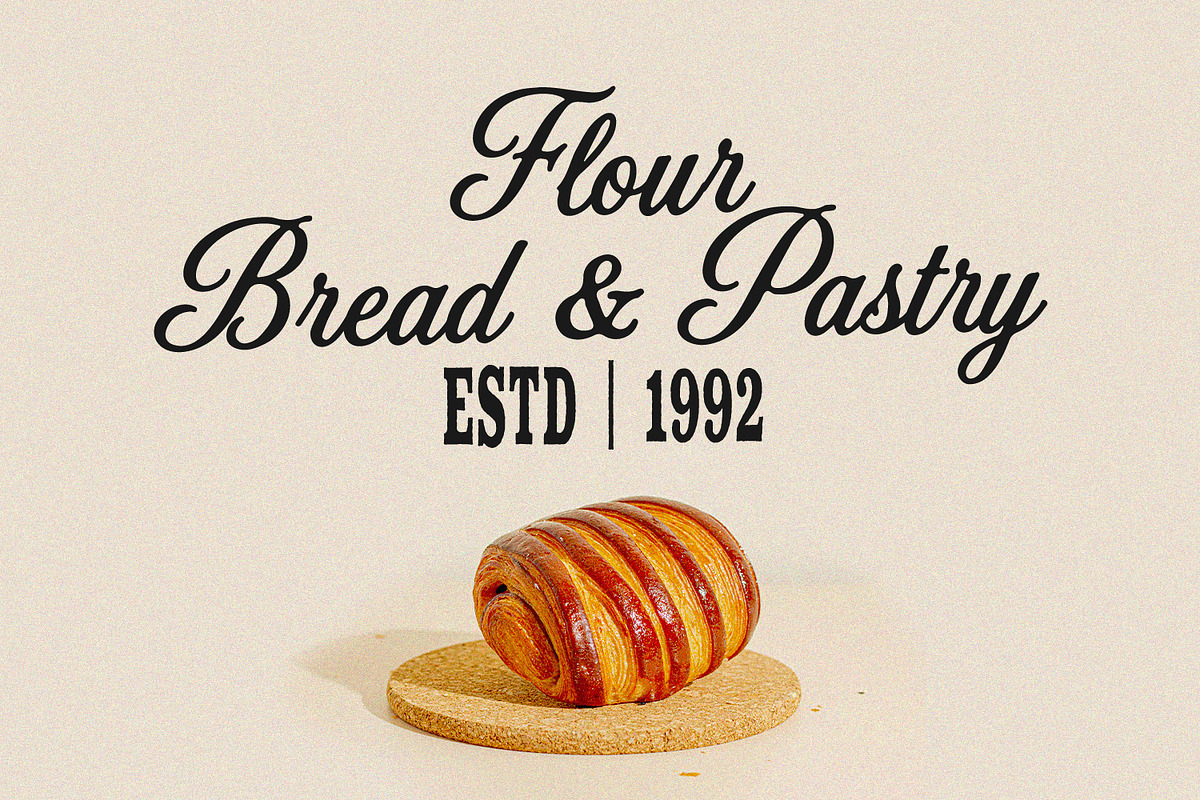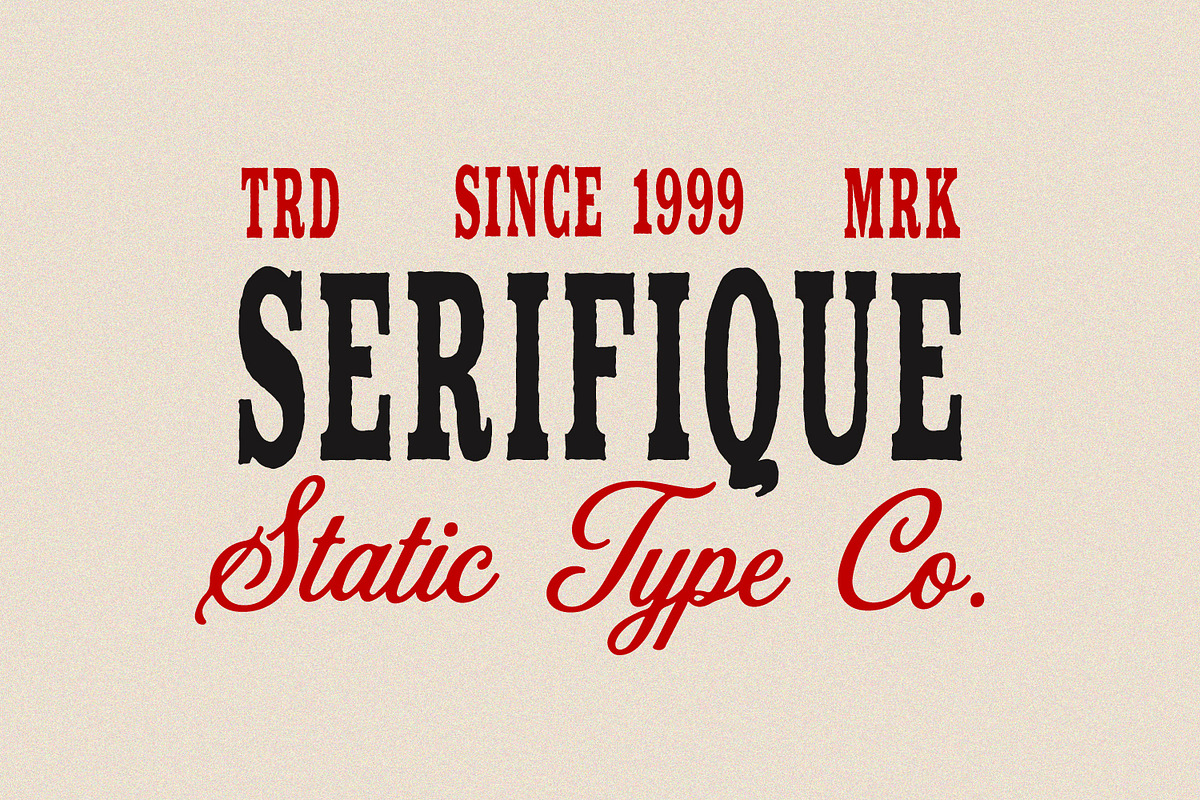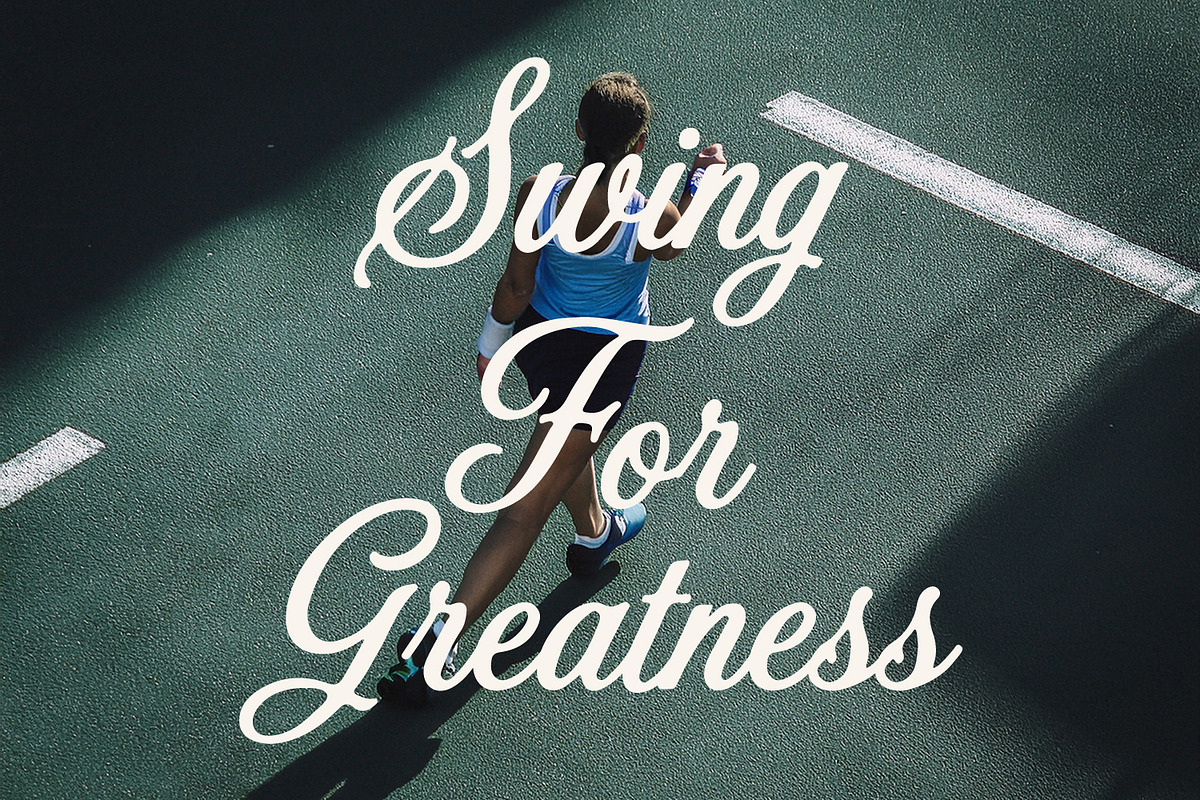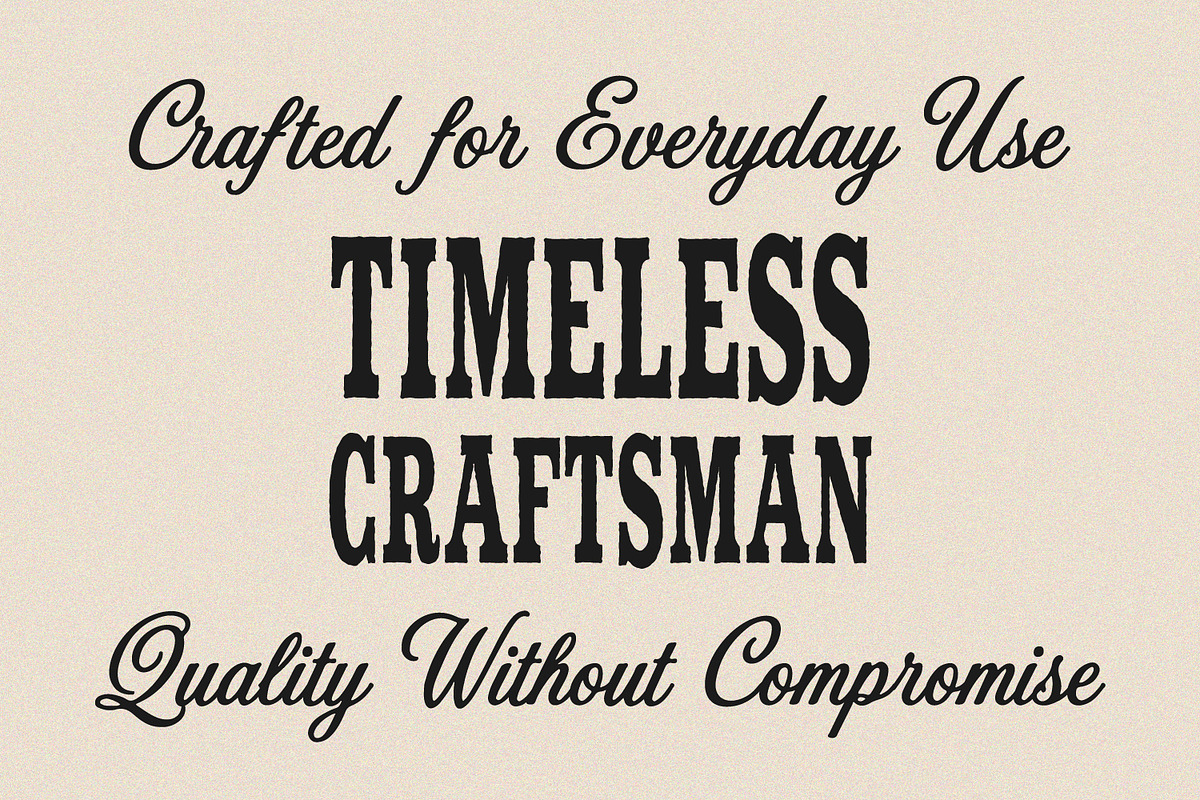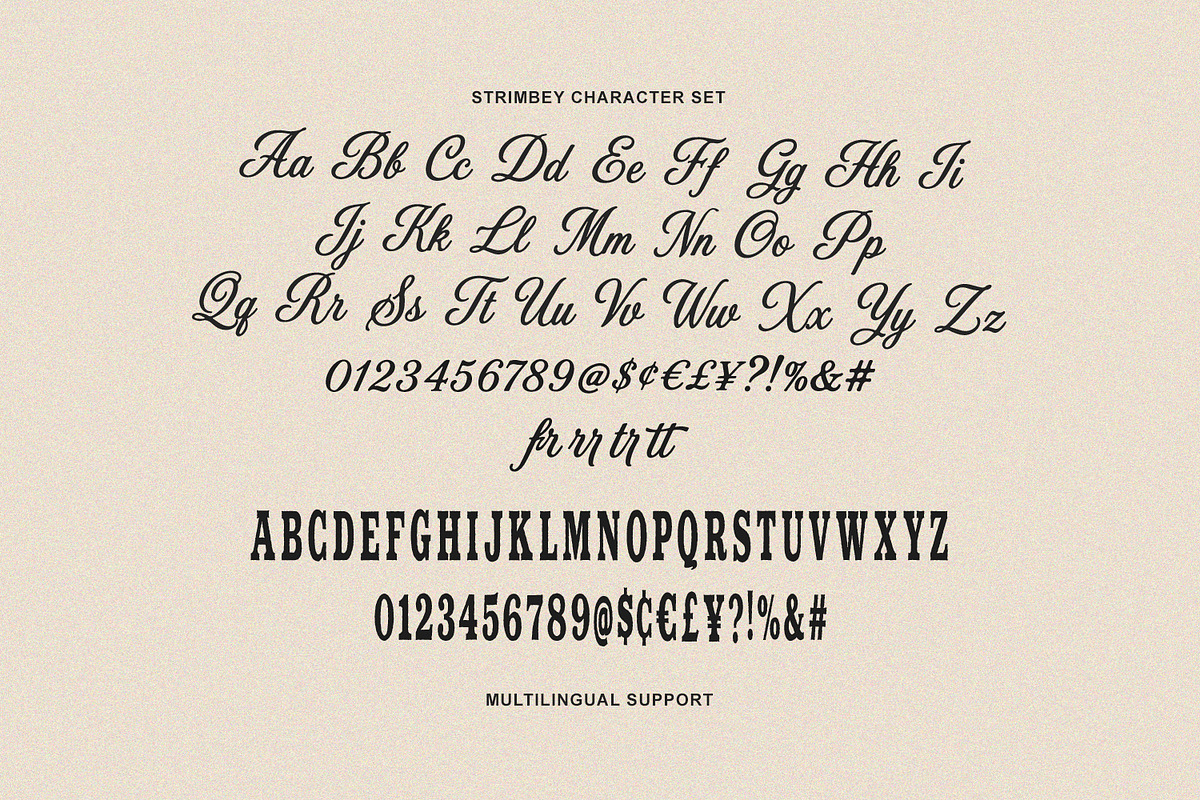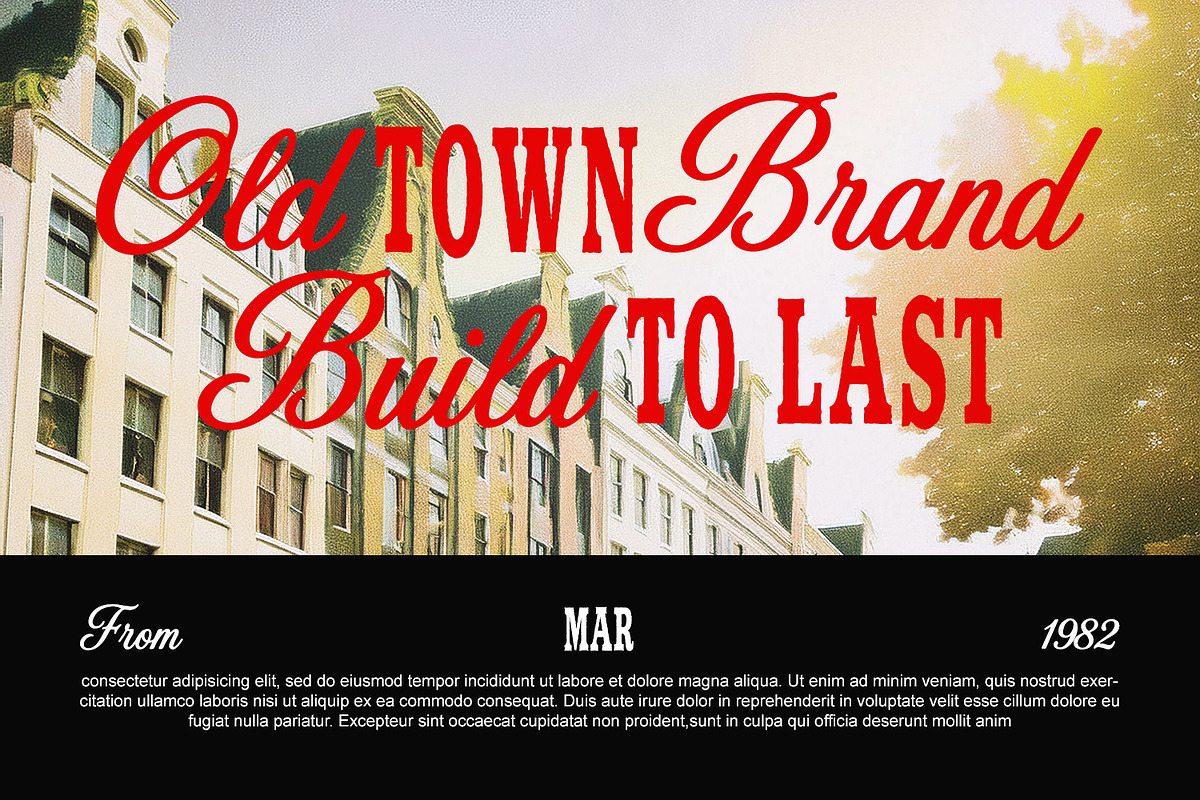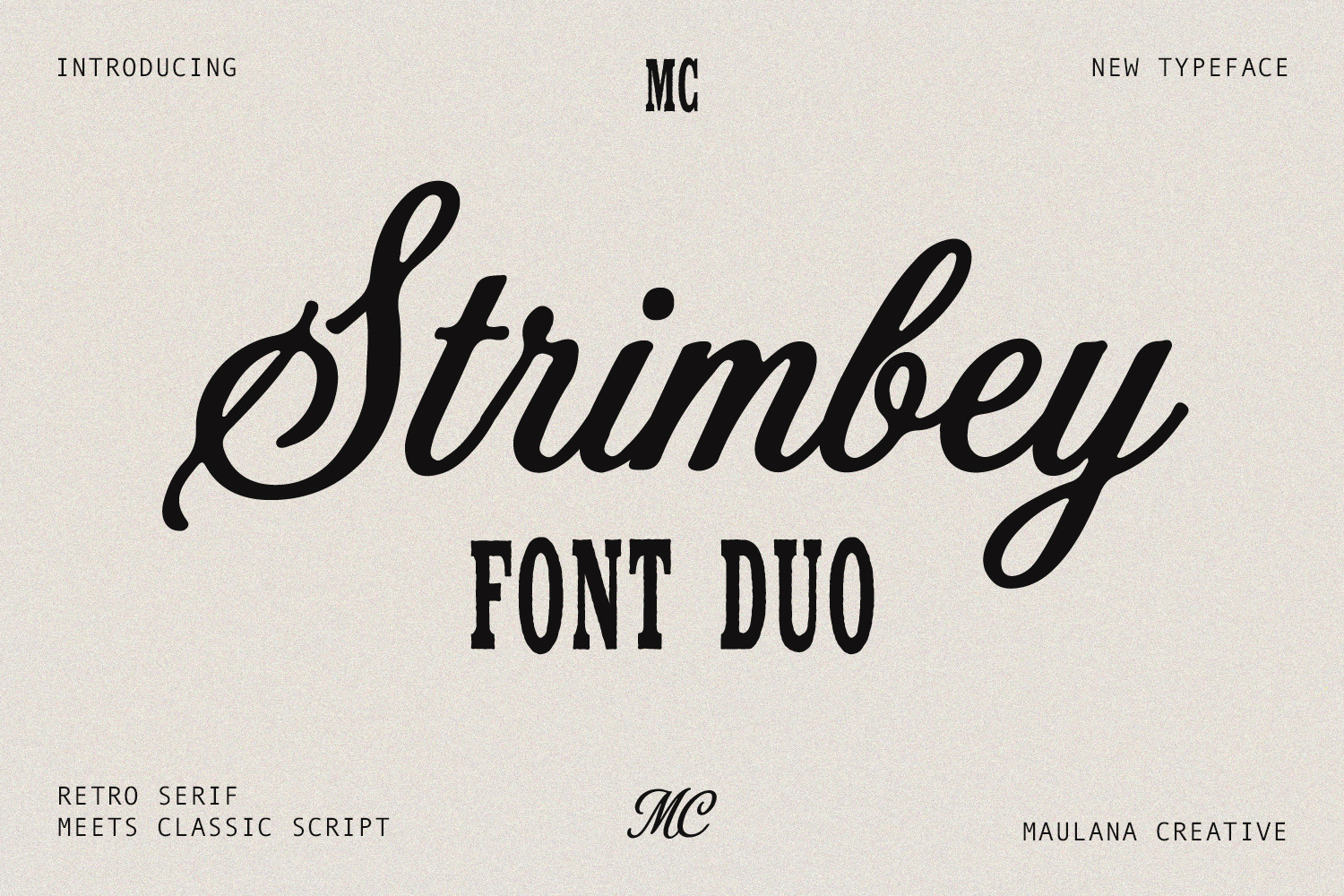
Strimbey Retro Serif Script Font Duo
Strimbey Font Duo is a harmonious combination of a bold retro serif and a flowing classic script typeface designed to bring timeless elegance to creative projects. The contrasting styles complement each other seamlessly, merging strong, condensed letterforms with smooth, cursive calligraphy. This dual-font package offers exceptional versatility, making it an ideal choice for crafting memorable brand identities, logo designs, product packaging, and vintage-inspired signage.
Equipped with uppercase, lowercase, numbers, punctuation, and multilingual support, this typeface collection delivers both function and flair. The distinct character set allows designers to easily create visual hierarchy in editorial layouts, poster compositions, labels, and promotional graphics. Whether used individually or paired together, Strimbey provides a refined aesthetic that elevates any visual medium.
- Ligature for a natural handwriting flow